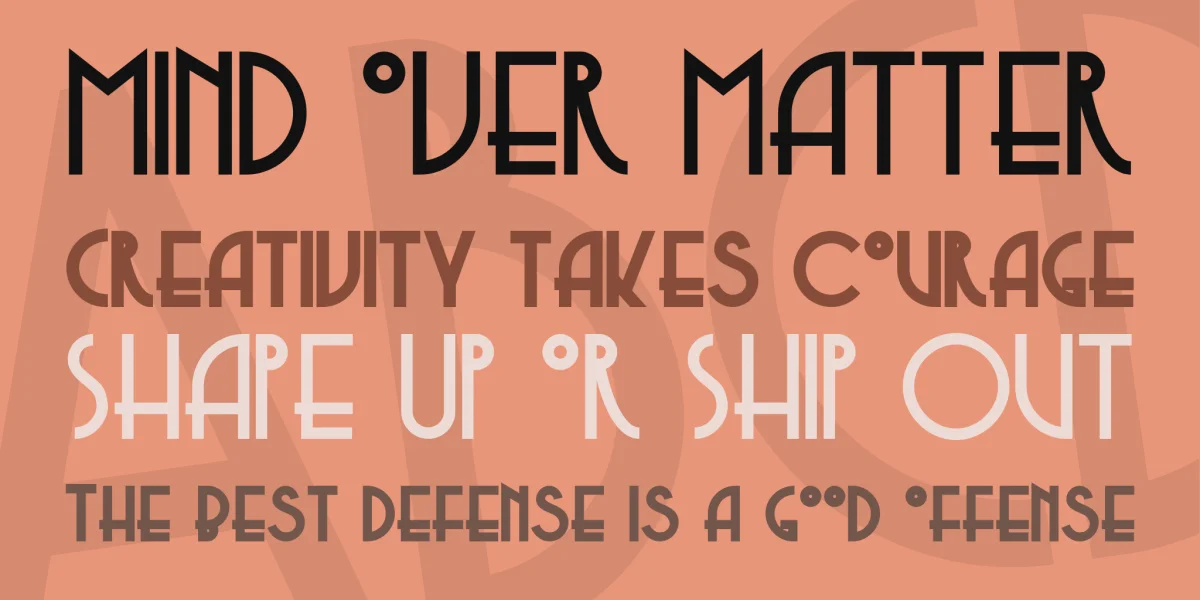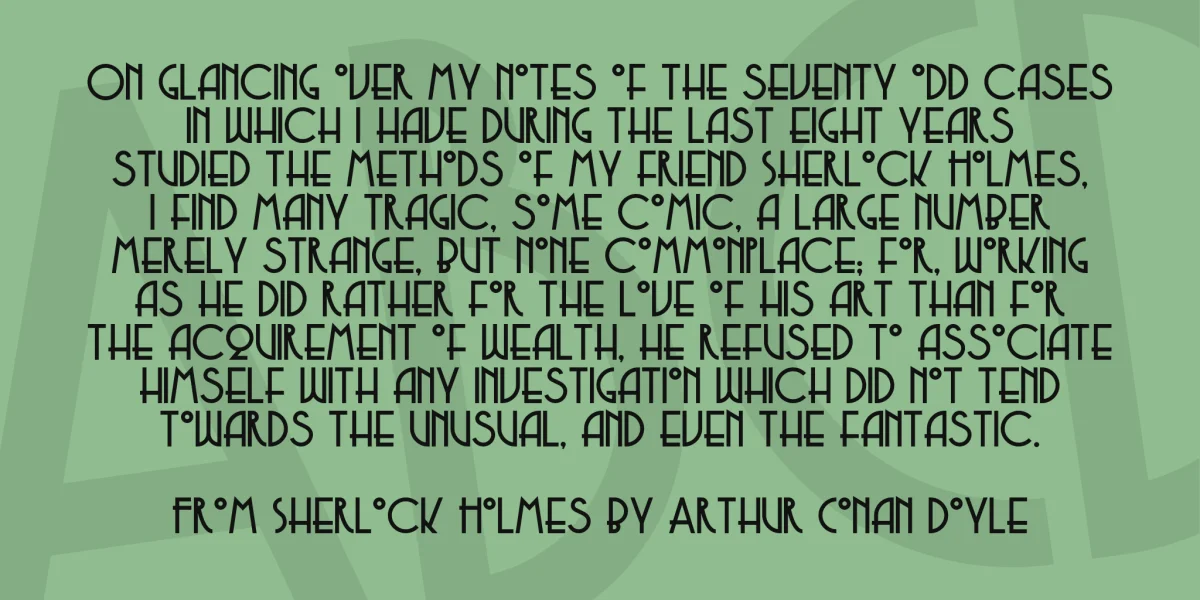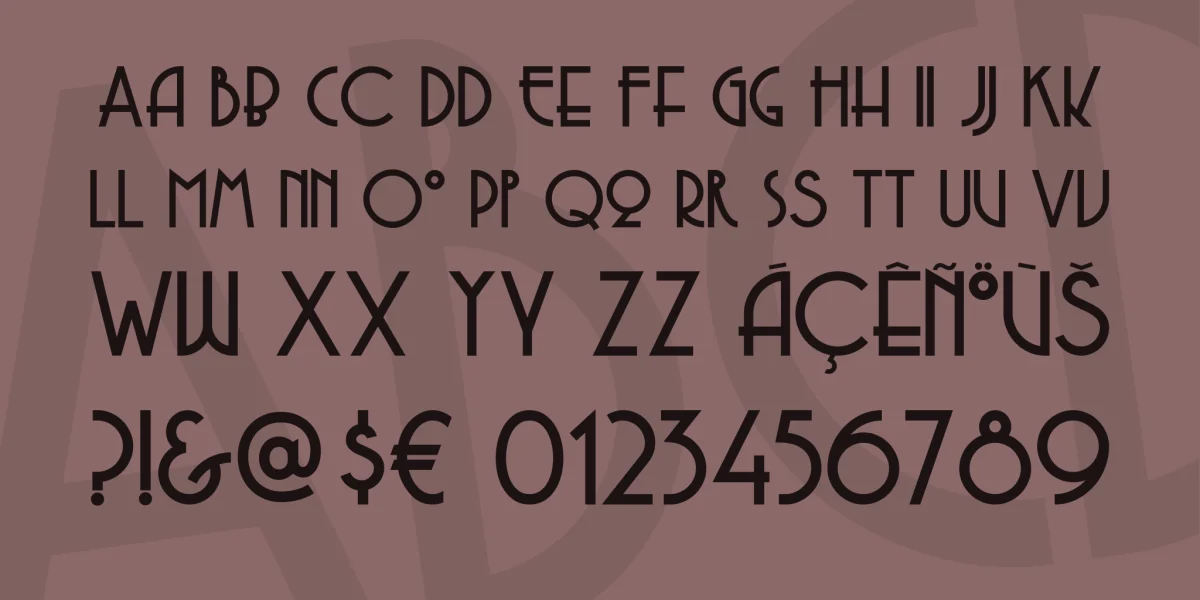
Back in the Olden Days of Graphic Design B.C. (before computers), type freaks used to wait in anxious anticipation for each new release of the Letraset catalog. The inspiration for this font, Premiere Lightline, was one such release, and probably help spur my interest in Deco designs. The original font was VERY light indeed, suitable only for use in large sizes. My version is beefier, and includes an entire lower case of alternate letterforms, making this (at least) two fonts in one. The name is the 40’s hep talk equivalent of “Cool!”